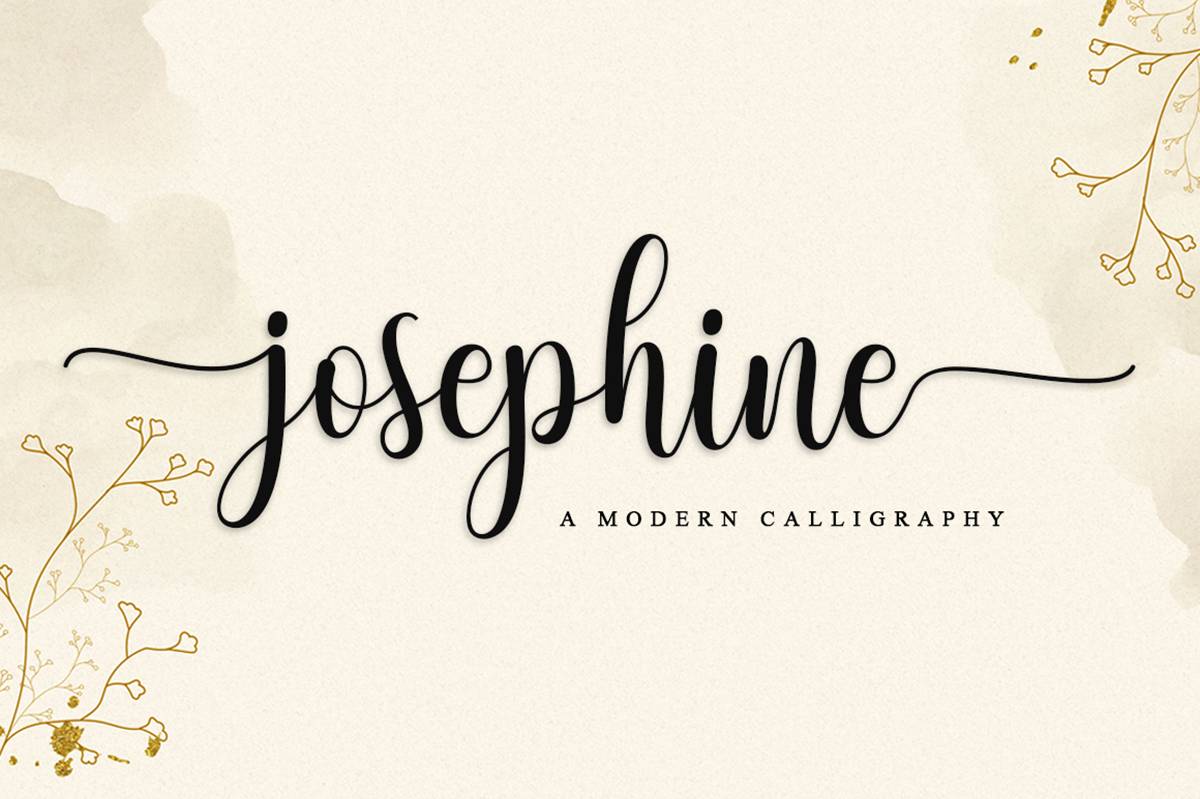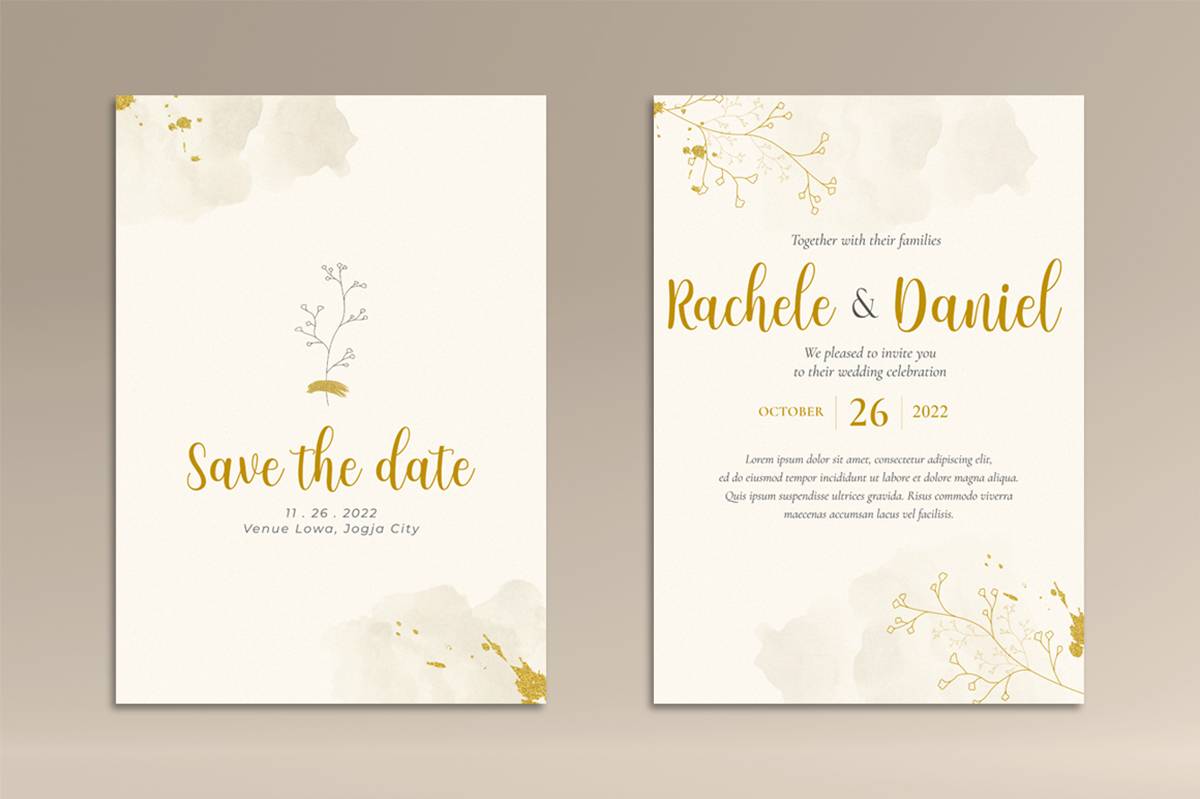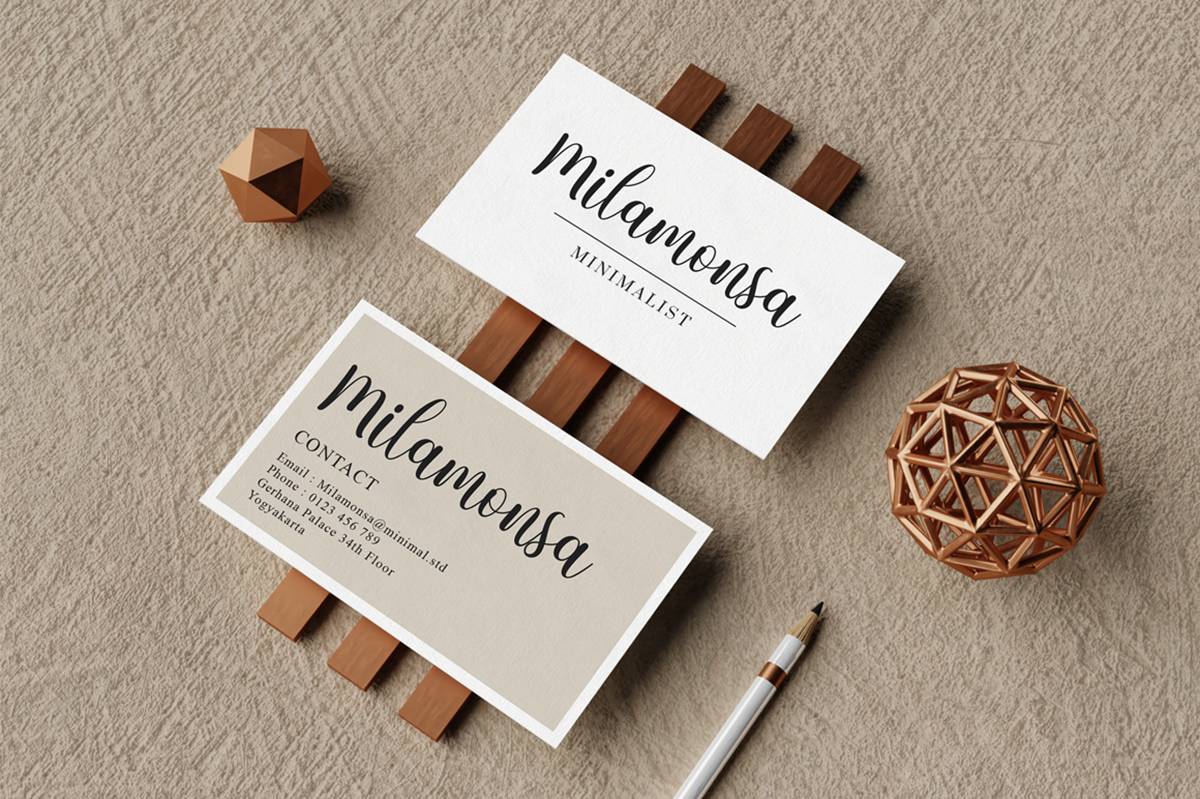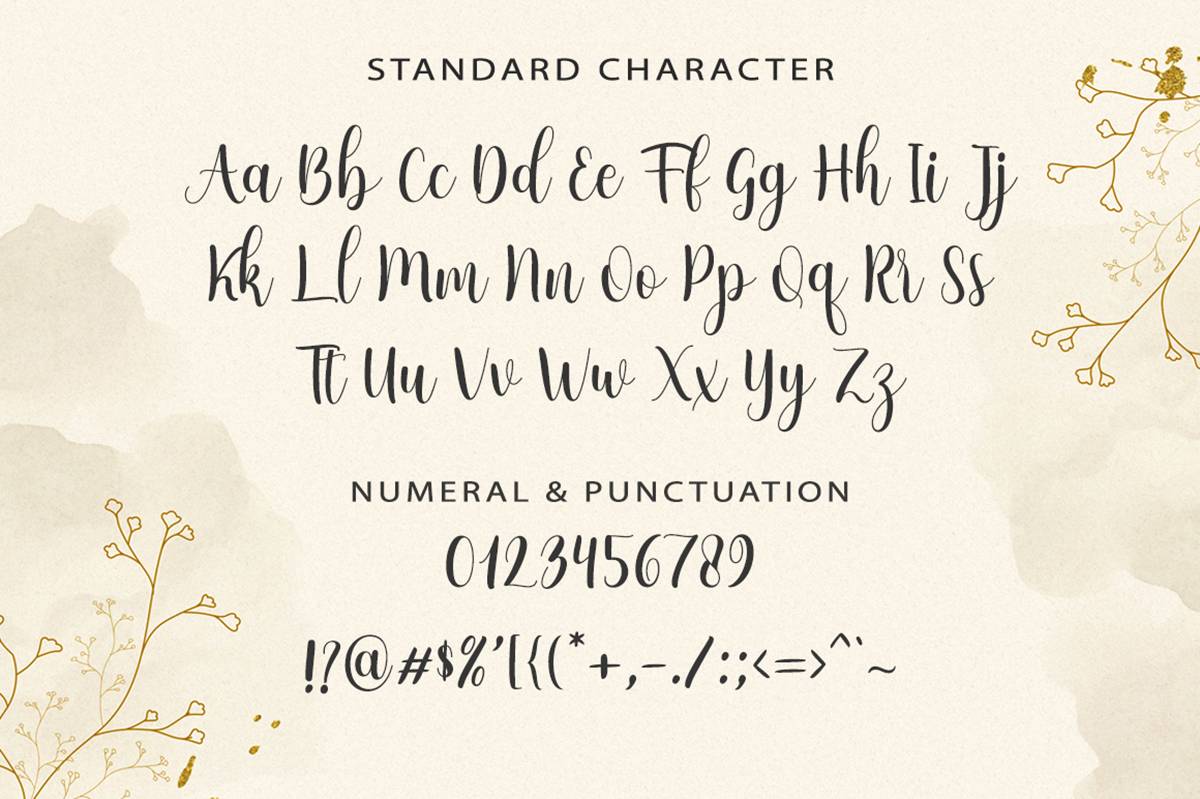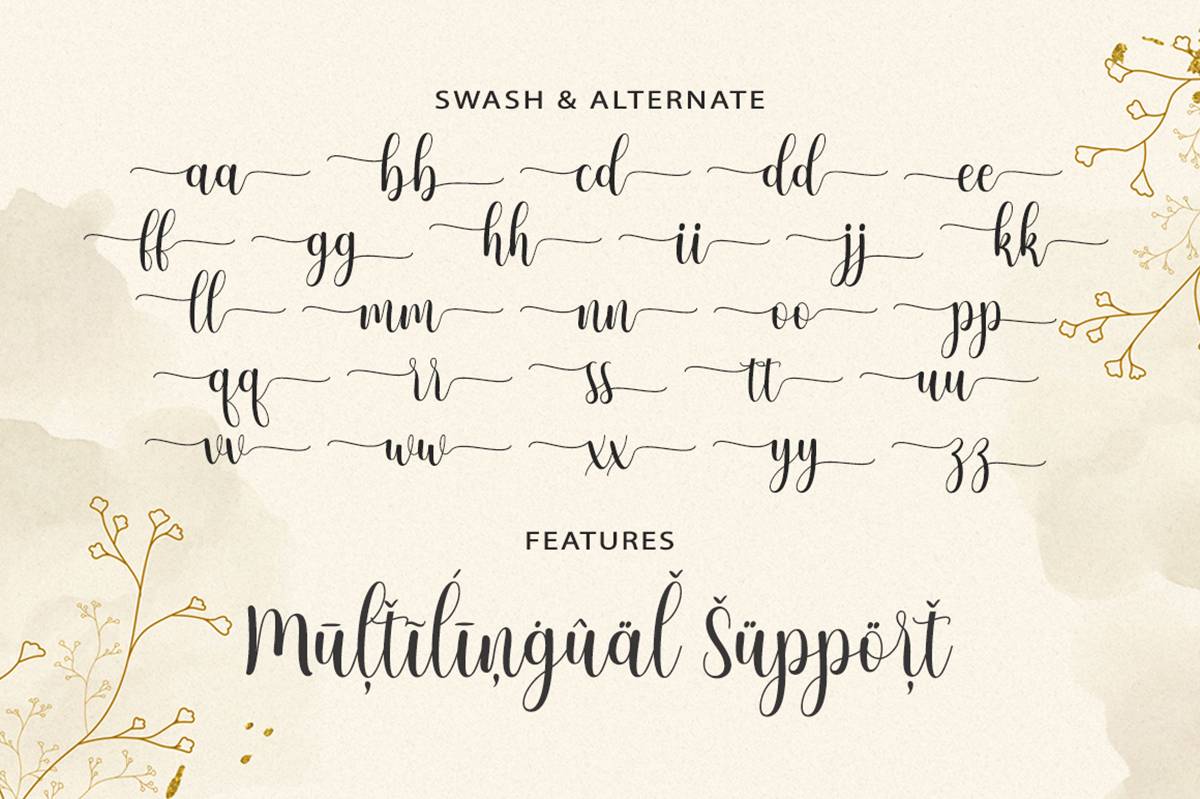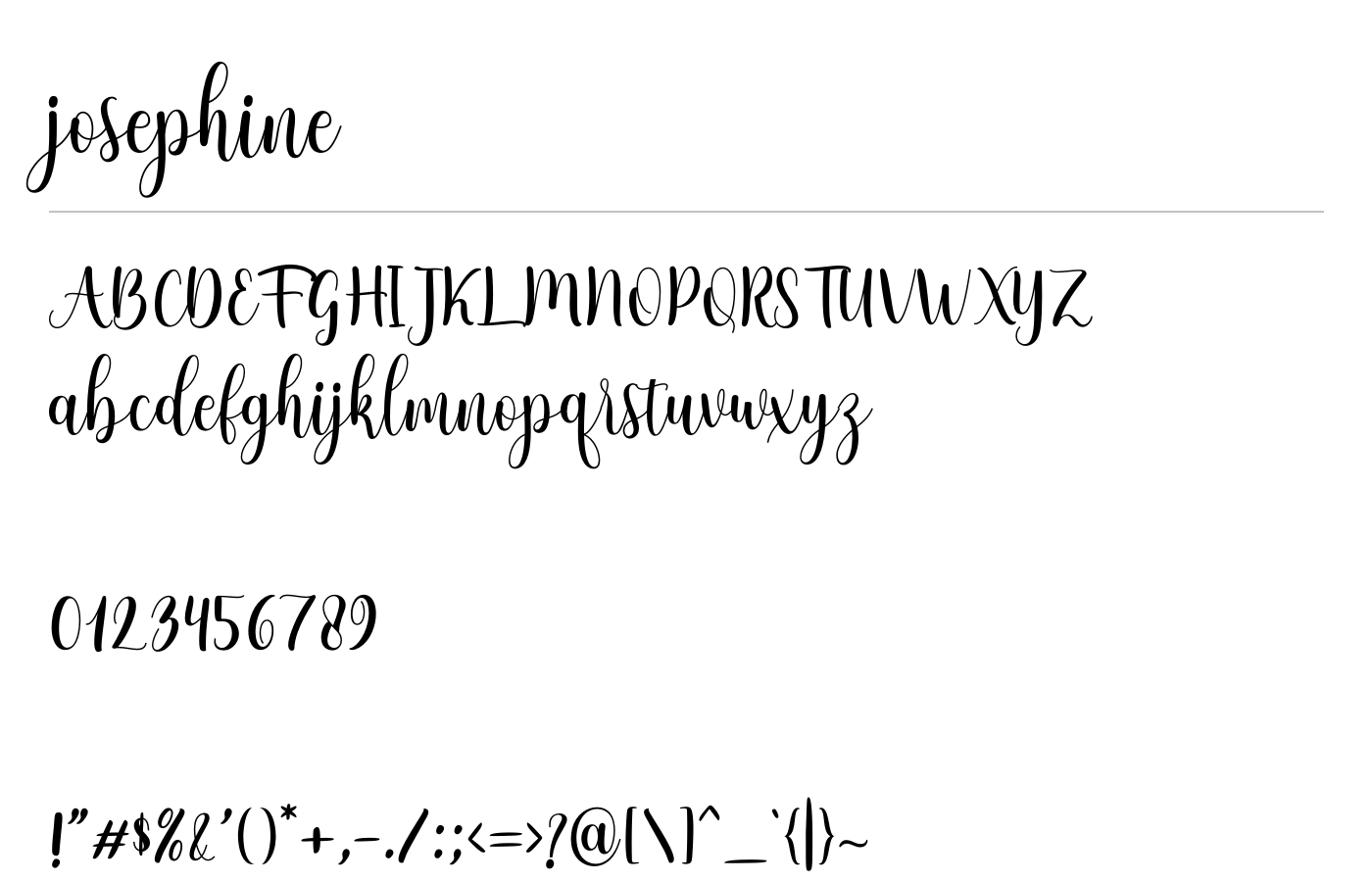
Josephine Script is an elegant and flowing script font that features a delicate, handwritten style with varied stroke thickness and graceful loops. Its smooth, cursive letterforms create a warm and personal feel, making it perfect for invitations, branding, and projects that seek a charming, sophisticated touch. This font works beautifully in designs that require a friendly yet refined look, such as wedding materials, fashion logos, and stylish packaging.
Josephine Script Font
About Josephine Script Font